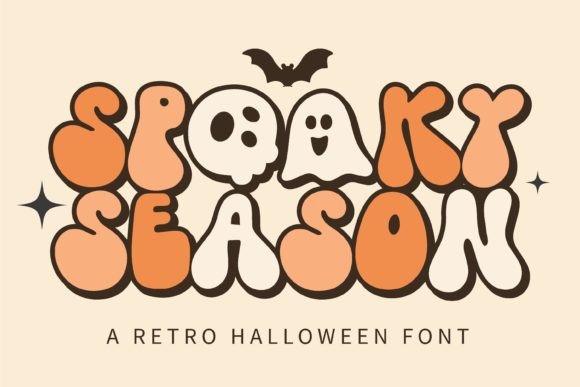
Hallowen Season Font: Delightful Retro Halloween Typeface with Vintage Charm
This typeface leans into old-fashioned Halloween charm, all rounded shapes and playful nostalgia, with small illustrated ghosts and bats adding extra personality throughout. A solid pick for retro-themed invitations, decorations, or printable projects. It tends to work best paired with a clean, uncluttered layout rather than a busy background. It's the sort of font that photographs well too, which matters if the finished project is heading to social media.